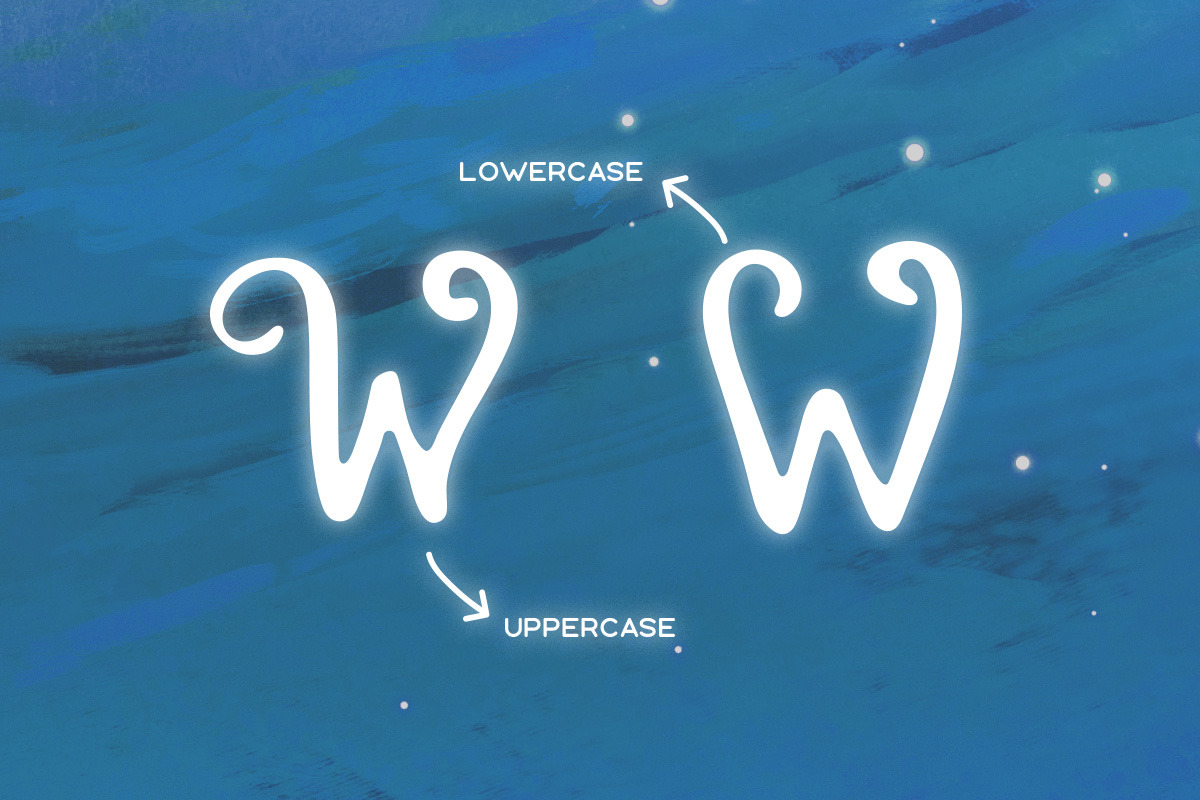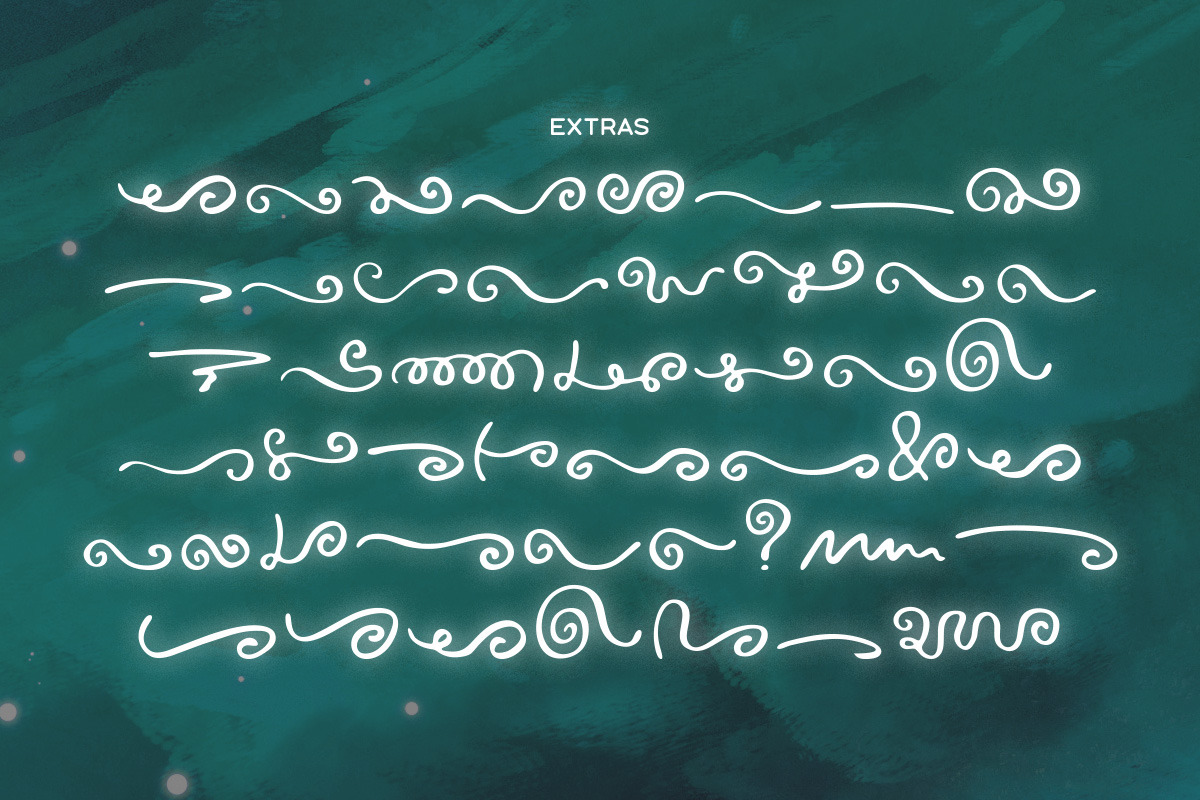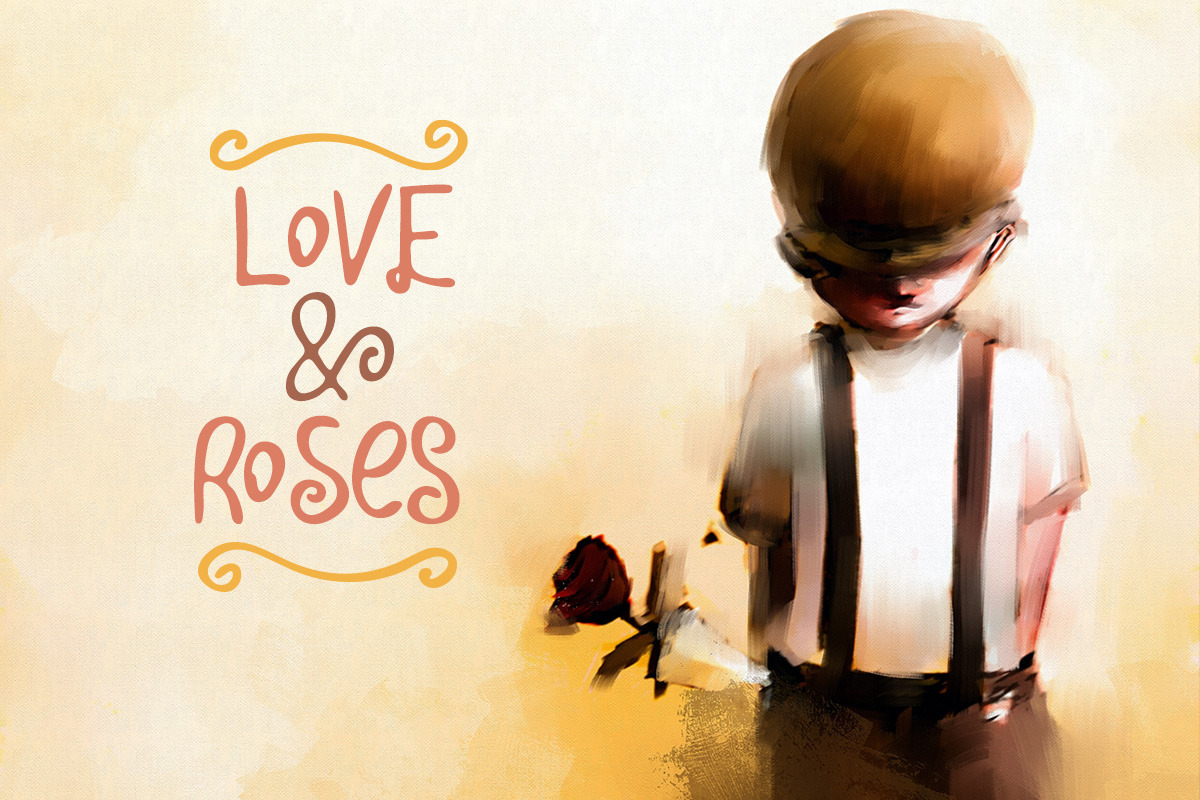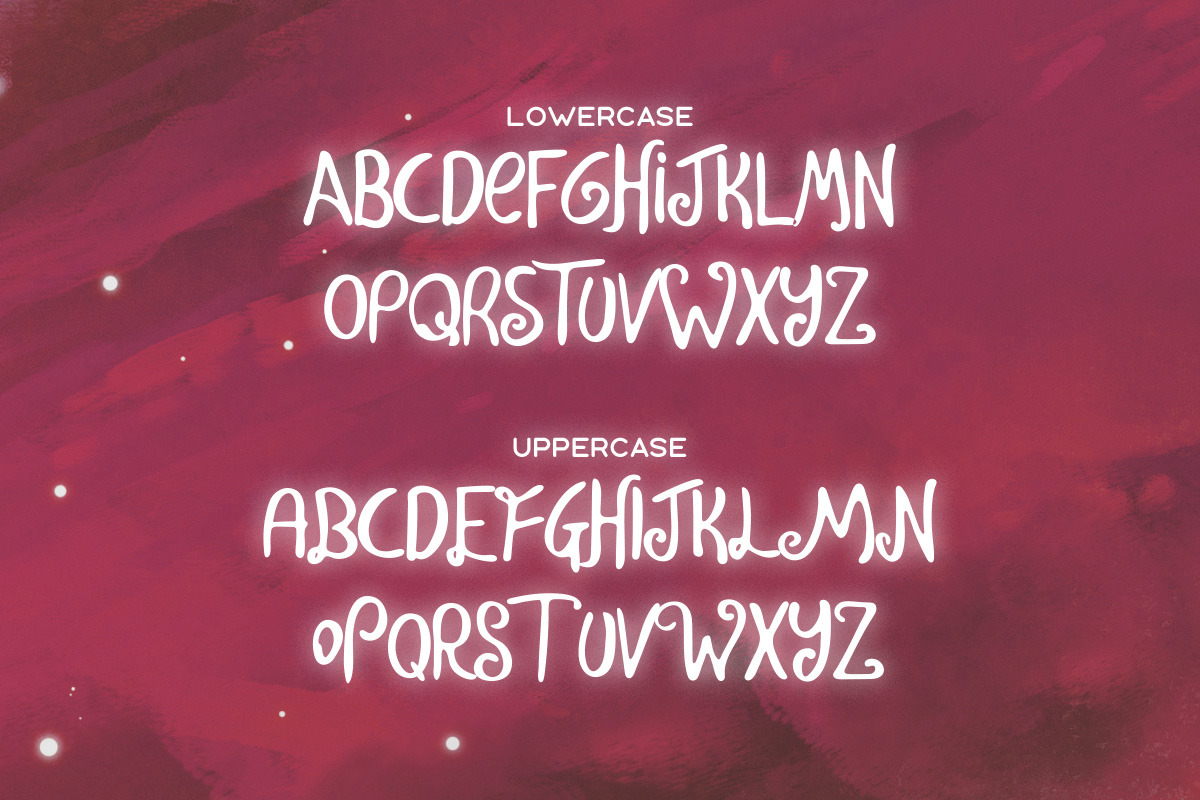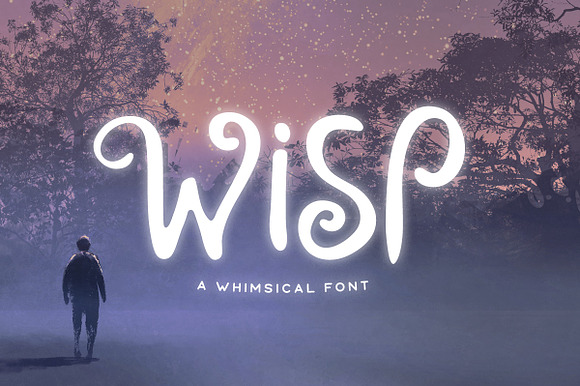
Wisp Typeface
Wisp is a display font with magical curves. Almost every letter has an alternate version that can be toggled with Caps Lock. The font includes multilingual uppercase letters, numbers, punctuation and an extra font file with tons of decorative elements.
- The font includes multilingual uppercase letters, numbers, punctuation and an extra font file with tons of decorative elements.
- Almost every letter has an alternate version that can be toggled with Caps Lock.
- The font includes multilingual uppercase letters, numbers, punctuation and an extra font file with tons of decorative elements.
Why Wisp Typeface is worth a look
Wisp Typeface by Tugcu Design Co. fits naturally into Branding, posters, packaging, typography.